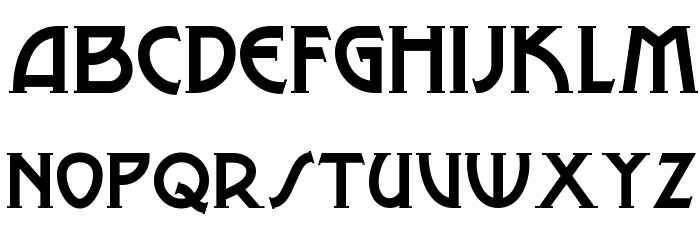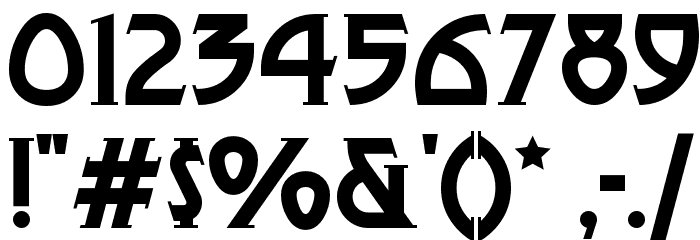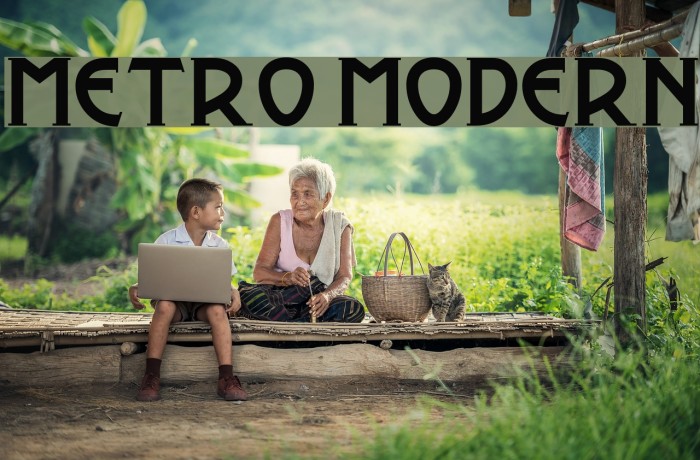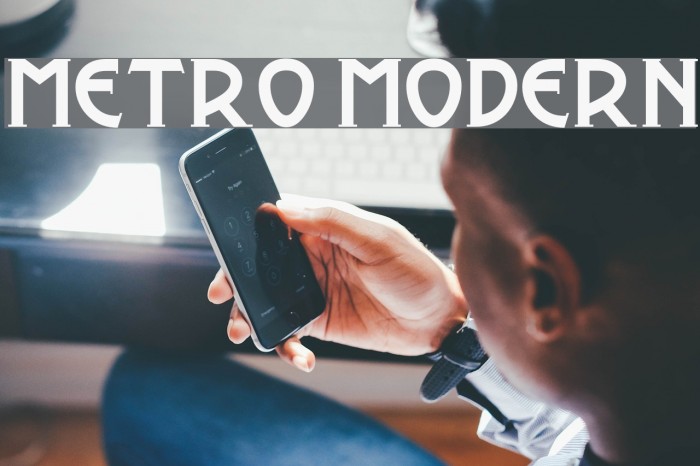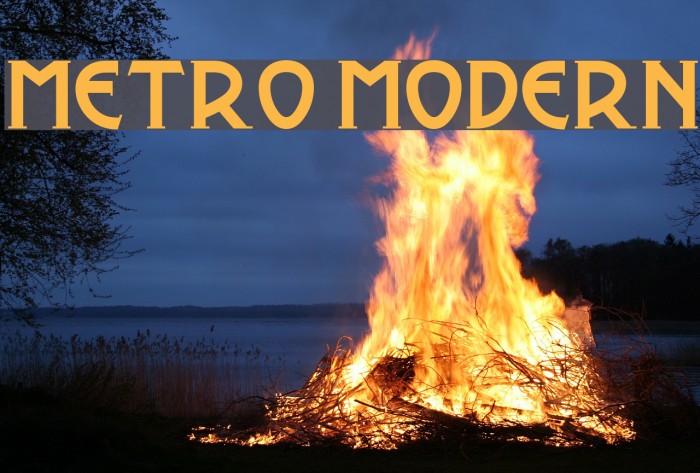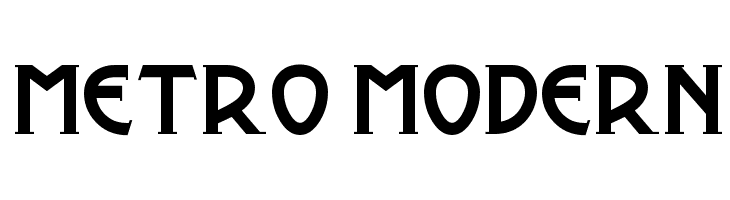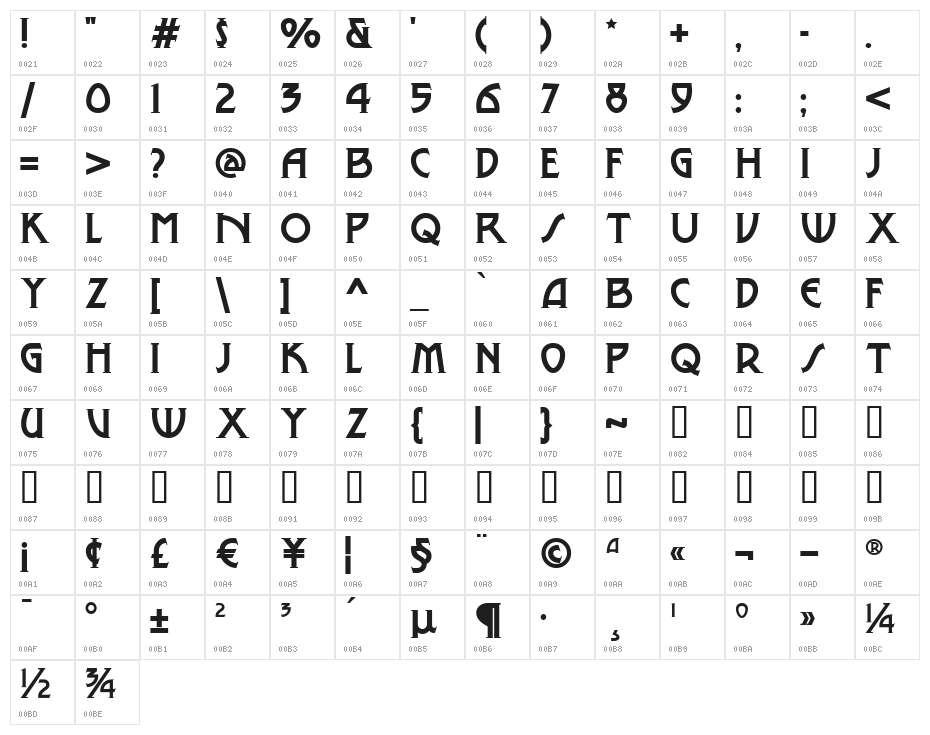
Metro Modern Font
This font exhibits a modern and geometric style with a unique blend of sharp angles and smooth curves. The uppercase letters are bold and assertive, featuring distinct angular cuts that give them a futuristic appearance. The lowercase letters maintain a consistent style, complementing the uppercase with their sleek and streamlined forms. The numerals are equally bold, with a uniform height that aligns well with the overall design. Special characters are crafted with the same attention to detail, ensuring they integrate seamlessly with the alphabet. The font's design is both striking and versatile, making it suitable for a variety of applications.
A modern, geometric font with bold, angular characters.